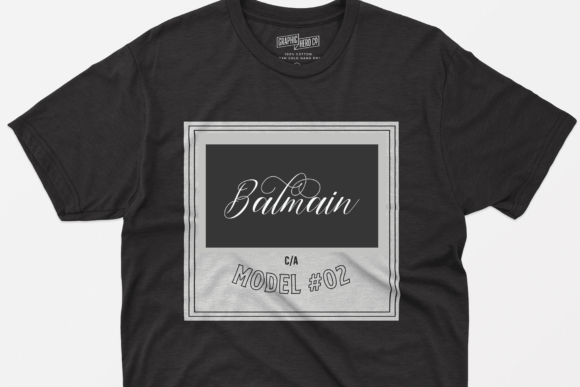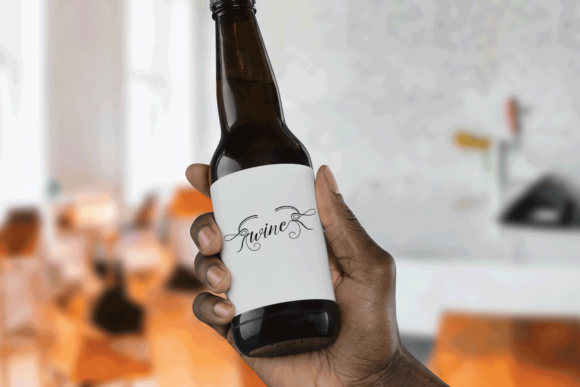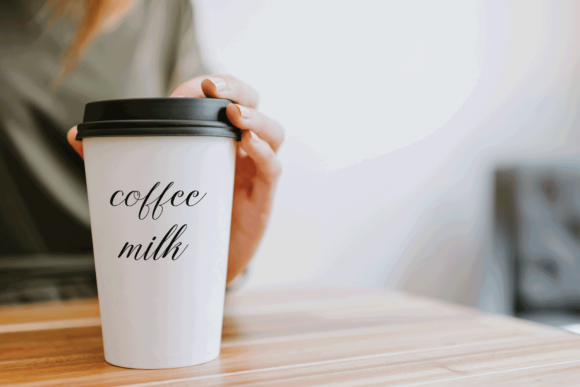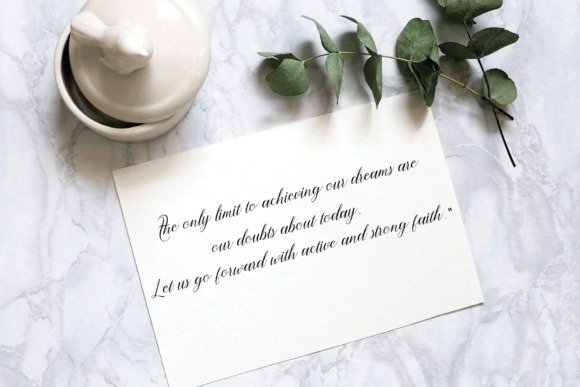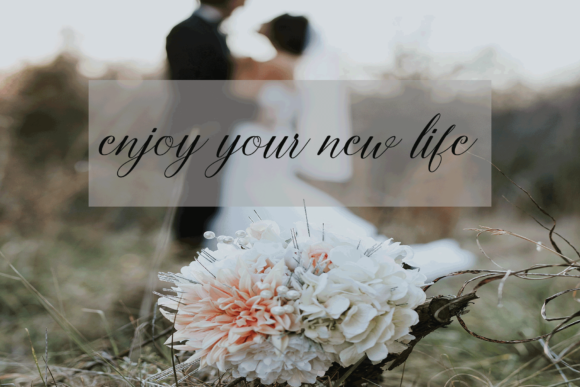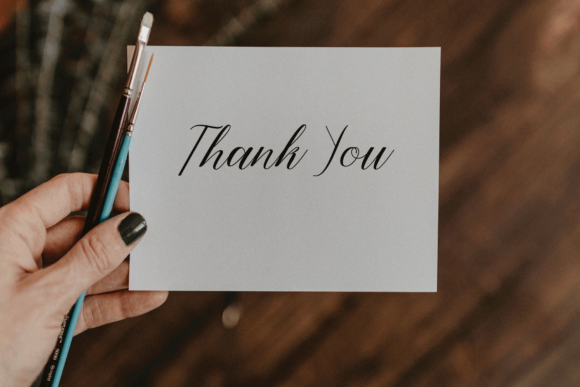
Introducing Edyta Font: The Elegant Calligraphy Font for Modern Designers
In the world of typography, calligraphy fonts have always been a popular choice among designers and crafters. They add a touch of elegance and sophistication to any design project, making it stand out from the crowd. One such font that has gained significant attention in recent times is Edyta Font. In this article, we’ll take a closer look at Edyta, its features, and what makes it an ideal choice for modern designers.
What is Edyta Font?
Edyta is a beautiful, elegant calligraphy font designed in a handwriting style. Its unique and modern calligraphy form, combined with a very natural style, makes it a versatile font suitable for a wide range of design projects. Whether you’re working on a wedding invitation, a branding project, or a digital design, Edyta is sure to impress.
Key Features of Edyta Font
So, what sets Edyta apart from other calligraphy fonts? Here are some of its key features:
- PUA Encoded: Edyta is PUA (Private Use Area) encoded, which means you can access all glyphs and swashes with ease. This feature makes it incredibly convenient to use, as you can easily access the various characters and flourishes to create stunning designs.
- Modern Calligraphy Form: Edyta boasts a modern calligraphy form that is both elegant and sophisticated. Its unique style is sure to add a touch of luxury to any design project.
- Natural Style: The font has a very natural style, which makes it perfect for designs that require a more organic feel. Whether you’re working on a packaging design or a digital project, Edyta’s natural style is sure to shine through.
- Handwritten Style: Edyta is designed in a handwritten style, which gives it a personal and human touch. This feature makes it ideal for designs that require a more personal and emotive approach.
Why Choose Edyta Font?
With so many calligraphy fonts available, why choose Edyta? Here are some reasons why Edyta is an excellent choice for designers and crafters:
- Versatility: Edyta is an incredibly versatile font that can be used for a wide range of design projects. Whether you’re working on a wedding invitation, a branding project, or a digital design, Edyta is sure to impress.
- Elegance: Edyta’s elegant calligraphy style makes it perfect for designs that require a touch of sophistication and luxury.
- Easy to Use: Edyta’s PUA encoding makes it incredibly easy to use, as you can access all glyphs and swashes with ease.
- Unique Style: Edyta’s unique style sets it apart from other calligraphy fonts. Its modern calligraphy form and natural style make it a standout choice for designers.
In conclusion, Edyta font is an elegant calligraphy font that is sure to impress designers and crafters alike. Its unique and modern calligraphy form, combined with its natural style and PUA encoding, make it a versatile and easy-to-use font. Whether you’re working on a wedding invitation, a branding project, or a digital design, Edyta is an excellent choice. So why not give Edyta a try and see how it can elevate your design projects?